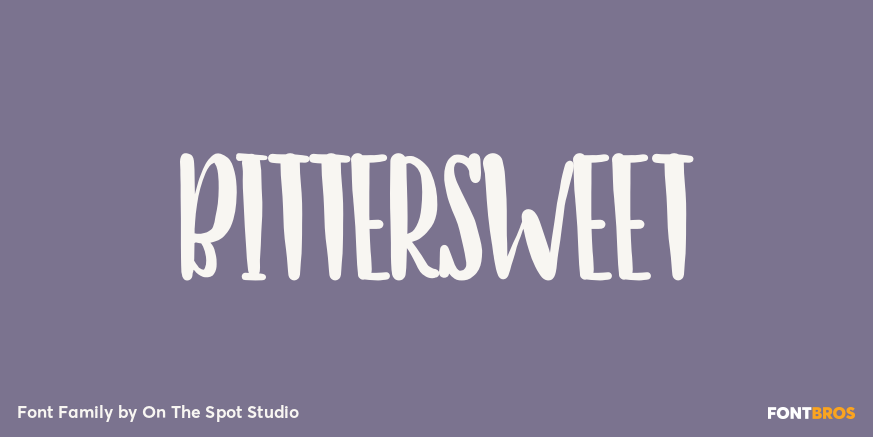
HomeFont BrosHandwrittenBittersweet Handwritten Bittersweet FacebookXPinterestWhatsApp 1 of 1 About Bittersweet Great for branding, journaling, scrapbooking, etc.  DOWNLOAD NOW People also explored Phenom Outline Bold Font Anttane Font Gregory Hartigan Valaseh Font Sotea Font MFC Spindler Borders Zalkmile Font Frederick Script Font Yard Sell Font 297 0 TagsBittersweet Font Previous articleSunny WeatherNext articleStrutter AOE Regular LEAVE A REPLY Cancel reply Comment: Please enter your comment! Name:* Please enter your name here Email:* You have entered an incorrect email address! Please enter your email address here Website: Save my name, email, and website in this browser for the next time I comment. Personal Use Free Sea Gardens Personal Use Free Read more about this font Cataclysmo Personal Use Free Read more about this font Edo SZ Personal Use Free Read more about this font Austin Personal Use Free Read more about this font BLOG Top 7 Google Fonts Alternatives for Faster and Privacy-Friendly Web Design (2025) Top 7 Google Fonts Alternatives for Faster and Privacy-Friendly Web Design (2025) When it comes to web typography, Google Fonts has long been the go-to... Fonts That Capture the Spirit of New York City Best Fonts for YouTube Videos: Make Your Thumbnails Stand Out How to Install and Use Fonts on Windows, macOS, and Web Projects